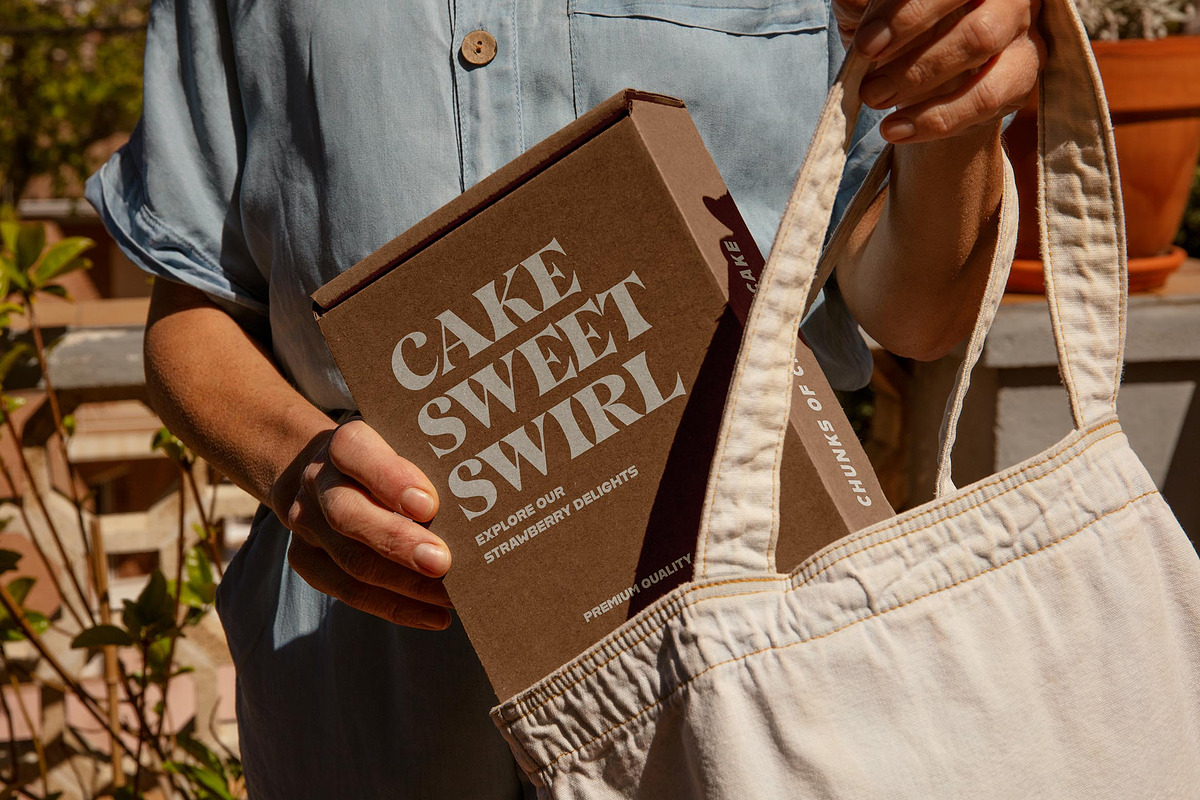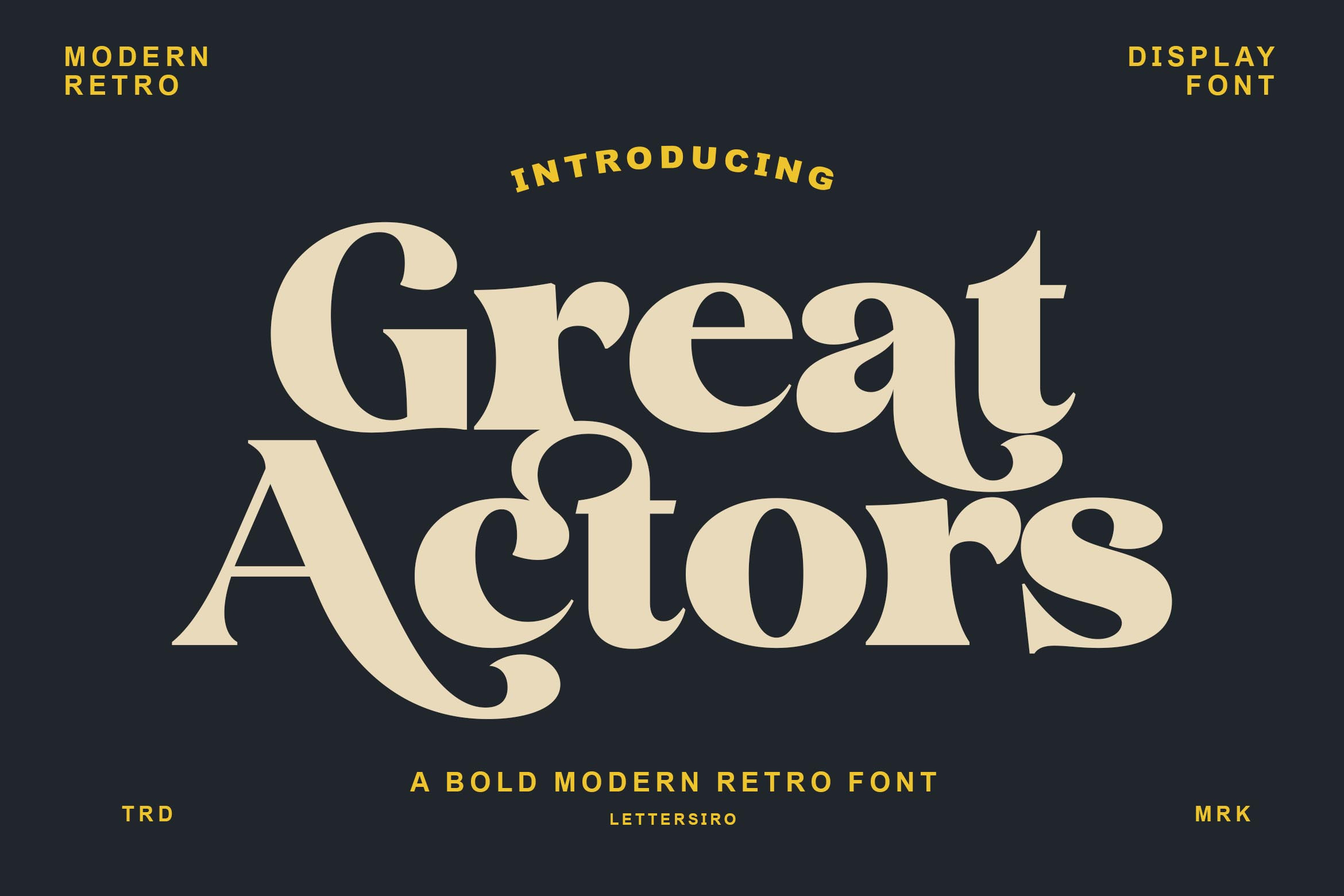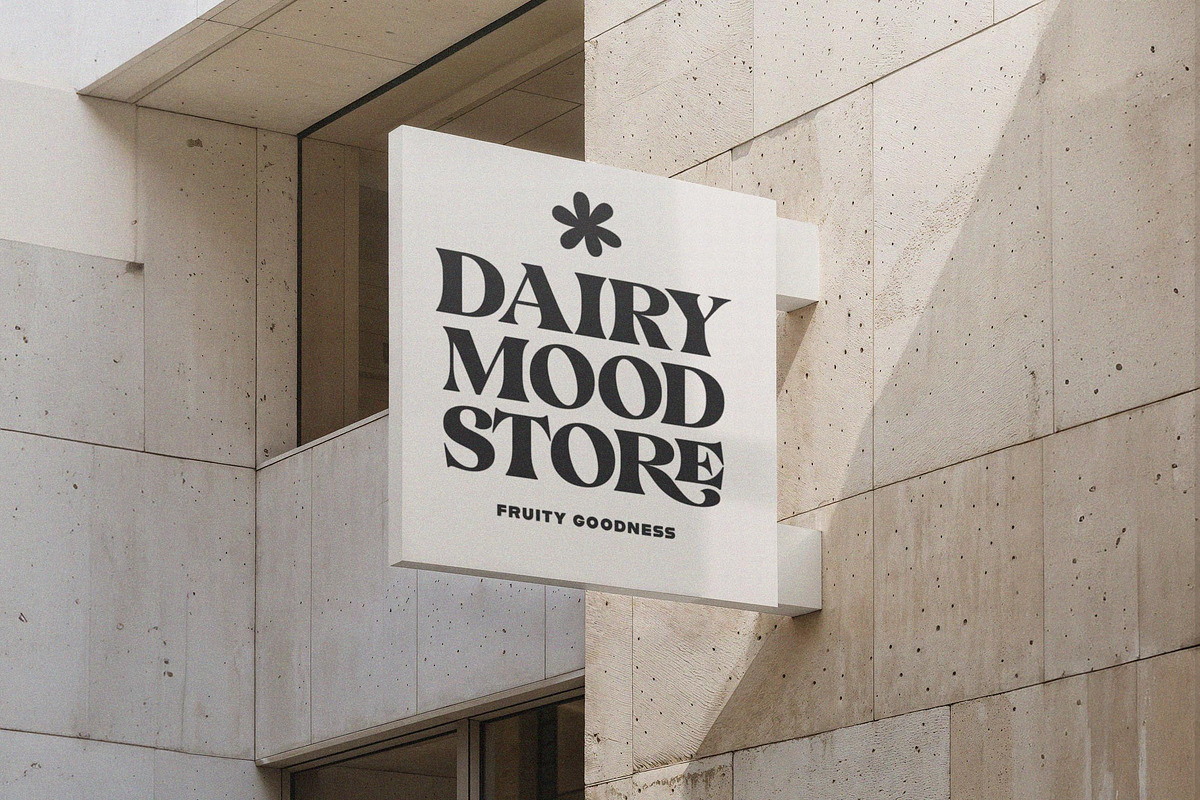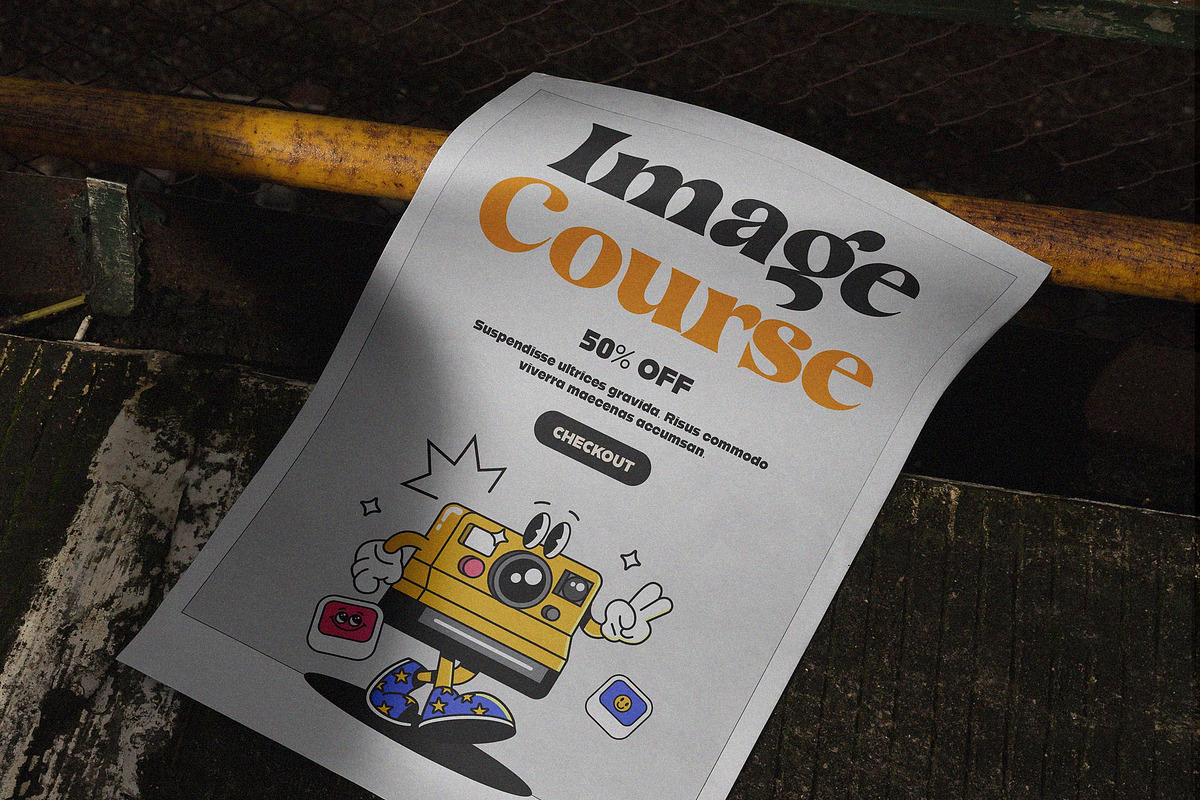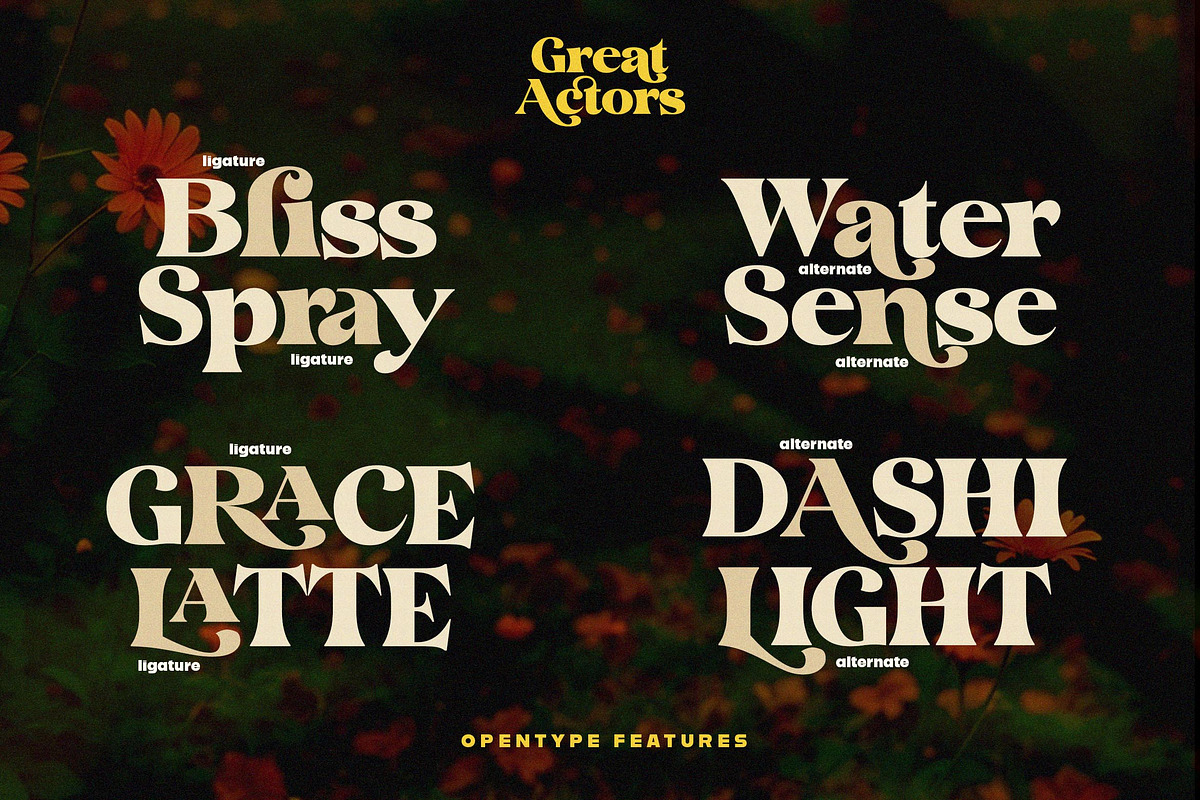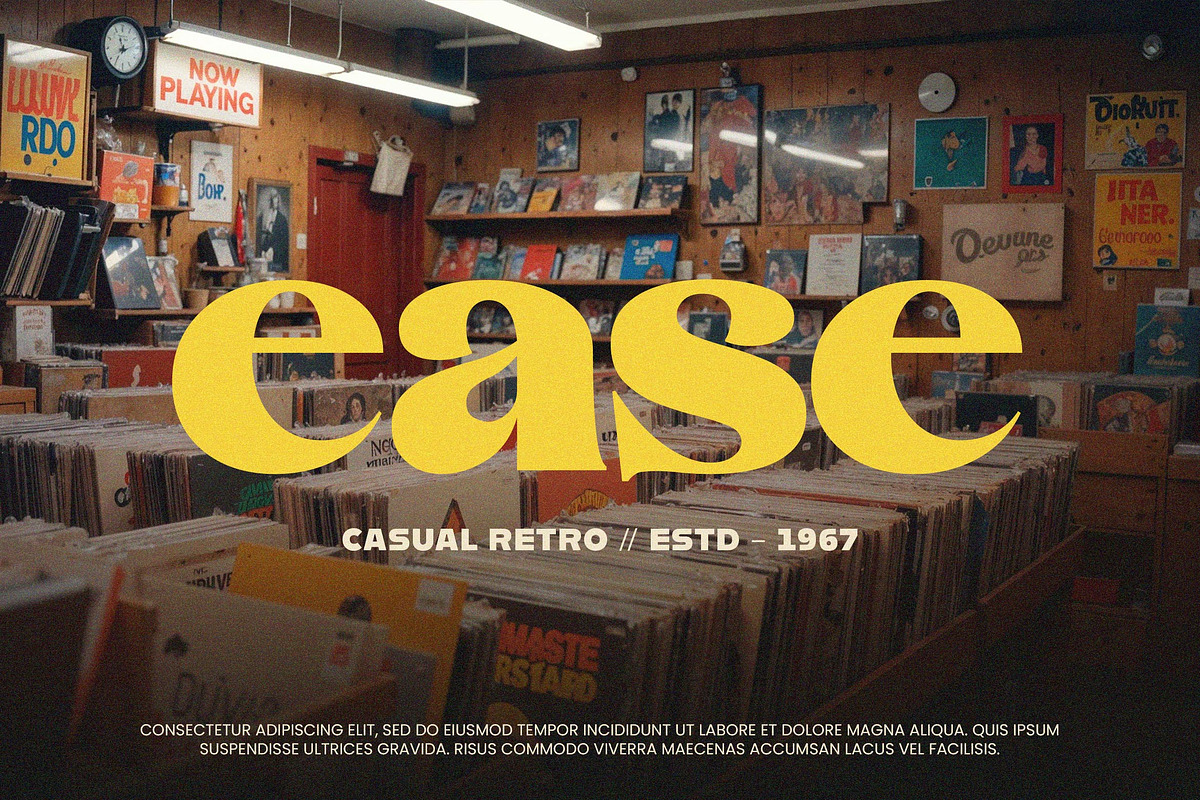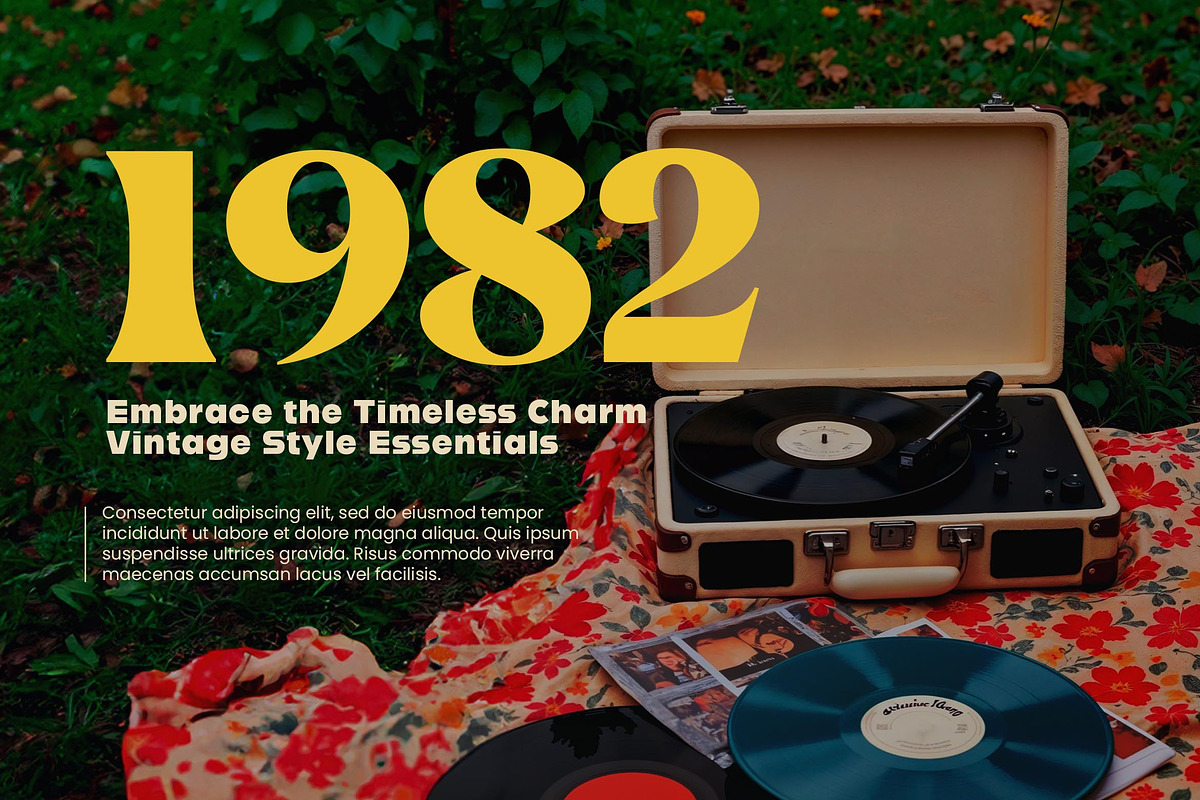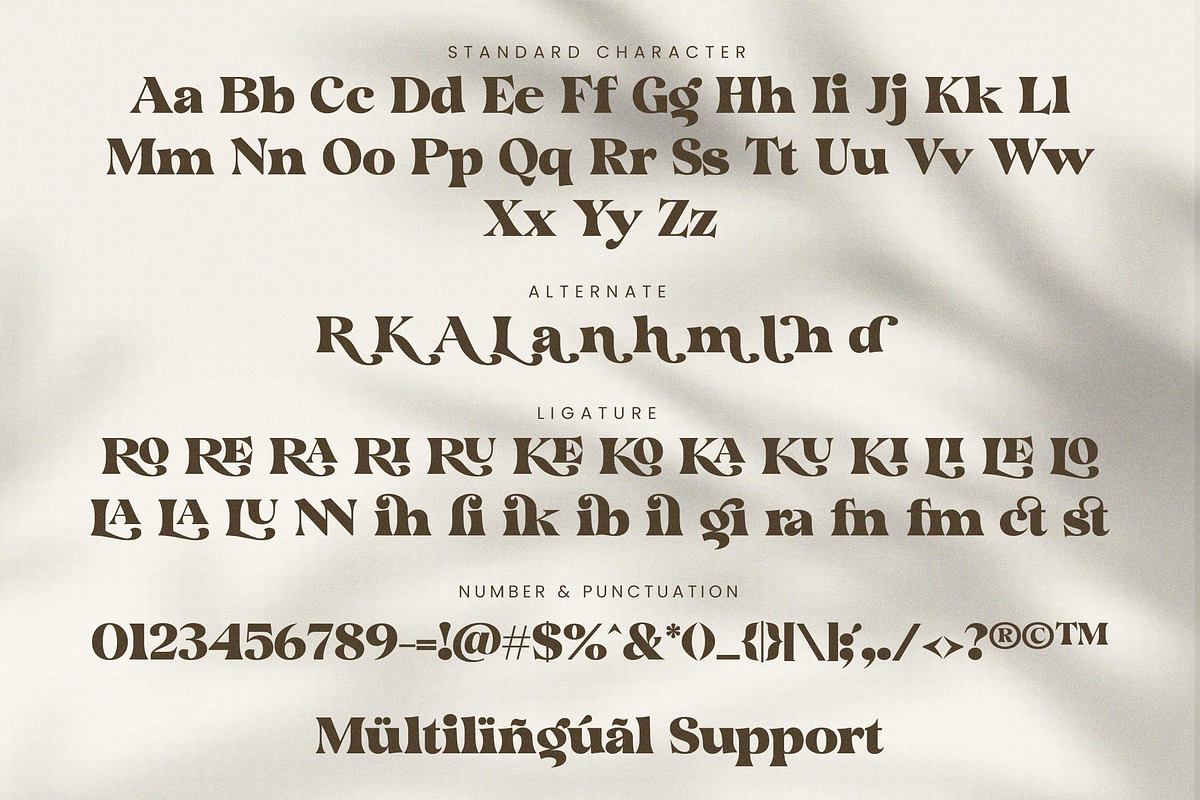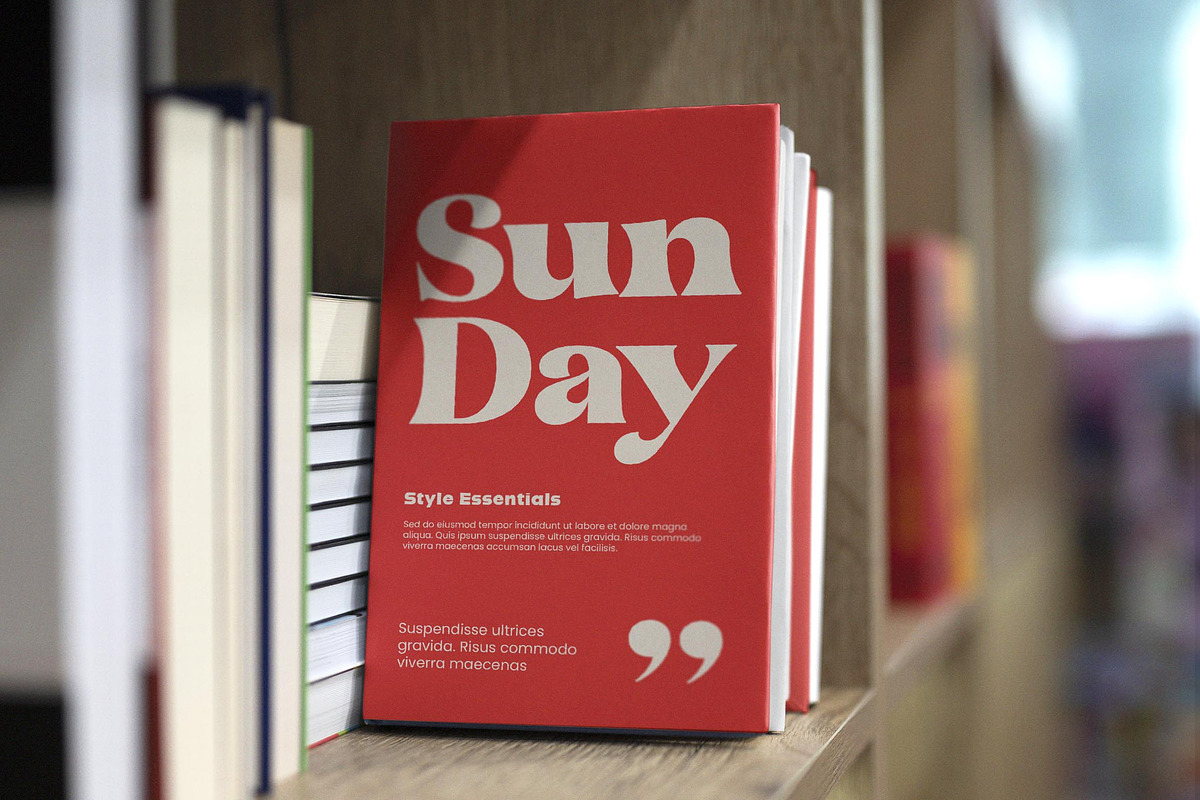
Great Actors - Modern Retro Font
Great Actors is a bold serif font that blends the charm of retro typography with a fresh modern twist. Designed with expressive curves, unique ligatures, and eye-catching alternates, this typeface brings a cinematic and high-impact presence to your headlines, branding, posters, and creative designs.
The sharp contrast and stylish details give Great Actors a personality that feels both nostalgic and contemporary—perfect for projects that need a bold statement with elegant flair. Each character is crafted to stand out, with alternate glyphs that allow for dynamic and customized layouts. This font is a creative powerhouse for designers who want to capture attention and leave a lasting impression.
Bold Modern Retro Style – Inspired by vintage typography with a sleek modern update.
Alternates & Ligatures – Includes stylish letter alternates and custom ligatures.
Complete Character Set – Uppercase, lowercase, punctuation, numbers, and symbols.
OpenType Features – Easily access alternates and ligatures in supported apps.
Multilingual Support – Covers Western European languages.
Logo Design – Create bold and stylish branding marks.
Poster & Headline – Make your titles pop with retro elegance.
Product Packaging – Give your labels and containers a striking look.
Editorial Design – Use in magazines, book covers, and creative layouts.
Advertising Projects – Perfect for bold campaigns and eye-catching visuals.
Great Actors is more than just a retro font—it’s a performance of form, flair, and unforgettable presence.